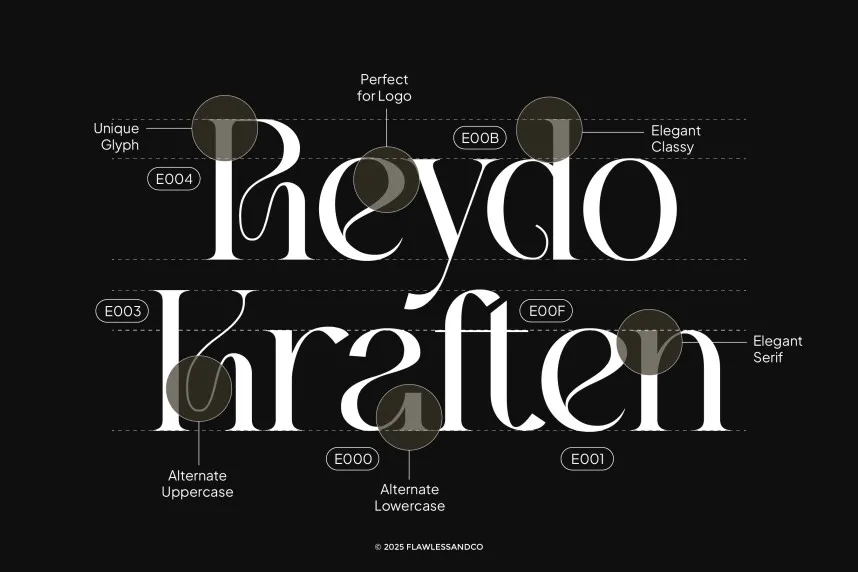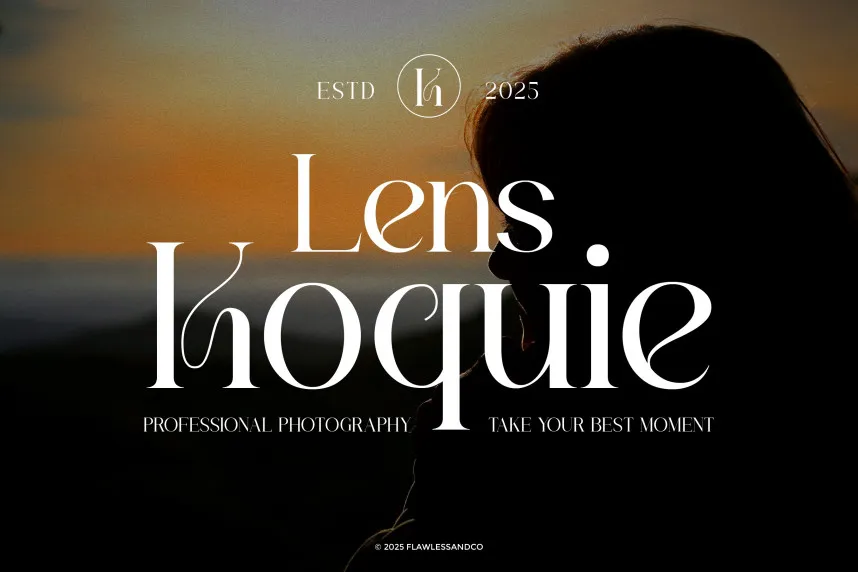
Avelora Font is a sleek, modern serif with sharp, bracketed serifs. It combines classic elegance with contemporary sharpness. This typeface has a sharp and intelligent appearance.
The contrast in stroke weight is pronounced yet controlled. It gives the font a striking presence on the page. It feels editorial, fashionable, and slightly exclusive.
Ideal for fashion magazines and luxury lifestyle brands. It adds an instant touch of sophistication and modernity. Avelora speaks to a discerning and style-conscious audience.
On a website, it can create a stunning visual hierarchy. Its sharp details render beautifully on high-resolution displays. It makes digital content feel premium and curated.
Avelora Font Family
Pair it with a minimal sans-serif for a balanced, modern look. This allows Avelora’s distinctive serifs to stand out. The combination is both timeless and forward-thinking.
Name Avelora Font
Type Modern Serif
Designer Elegant Type Studio
Usage Fashion magazines, luxury branding, and editorial layouts
Avelora is the font for the new era of classicism. It respects tradition while firmly looking toward the future. It is sharp, smart, and undeniably stylish.